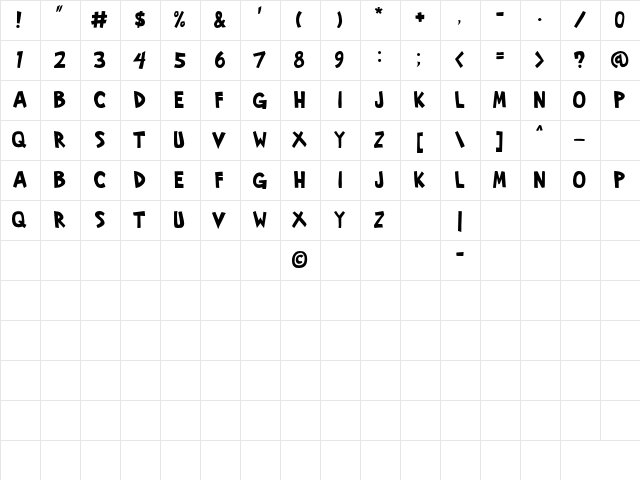
Indy Effects Bold
Design Context for Indy Effects Typeface
Indy Effects is a composed and adaptable typeface that performs quietly and consistently across a wide range of design contexts. Its bold stroke weight gives it real presence on the page.
Pro Tip: Use Indy Effects in both headline and body roles to test its range before committing to a single application.